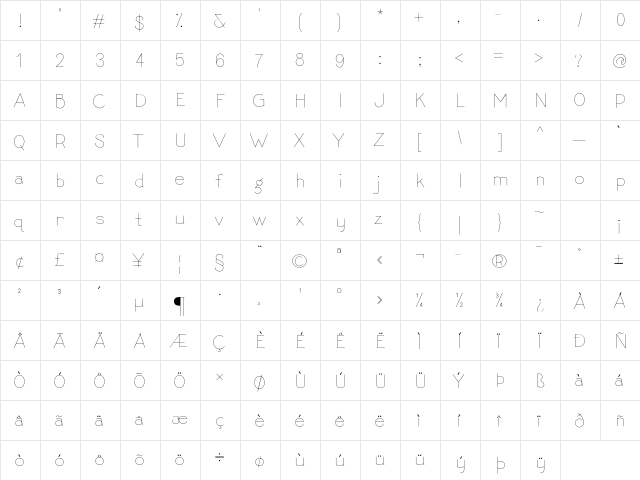
Ngosngos Sans Regular
Design Context for Ngosngos Sans Typeface
Ngosngos Sans is a composed and adaptable typeface that performs quietly and consistently across a wide range of design contexts.
Pro Tip: Use Ngosngos Sans in both headline and body roles to test its range before committing to a single application.